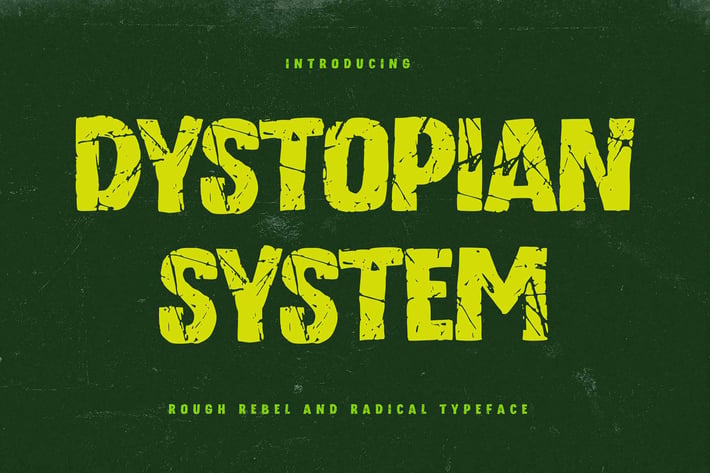
Dystopian System - Rough Rebel & Radical Typeface
Hello Everyone, introduce our new product Font Dystopian System Rough Rebel & Radical Typeface.This is a Textured Natural Style and Rough style with a clear style.
This font Dystopian System is great for your next creative project such as logos, printed quotes, invitations, cards, product packaging, headers, Logotype, Letterhead, Poster, Design this font is great for your creative projects such as watermark on photography, and perfect for logos & branding, invitation,advertisements,product designs, stationery, wedding designs,label ,product packaging, special events or anything that need handwritting taste.
That is has charming, authentic and relaxed characteristic more natural look to your text.